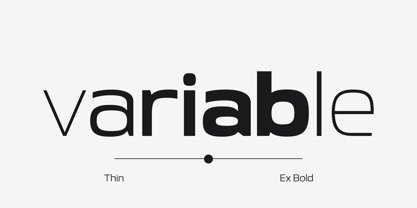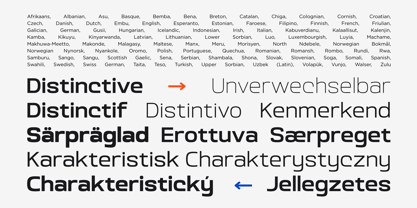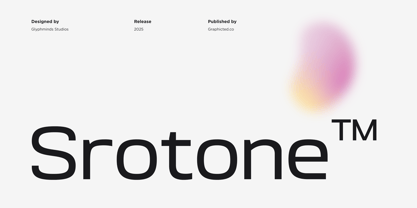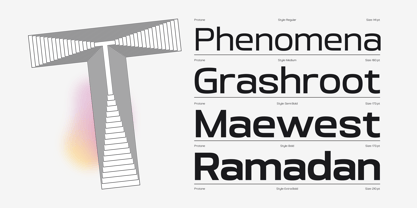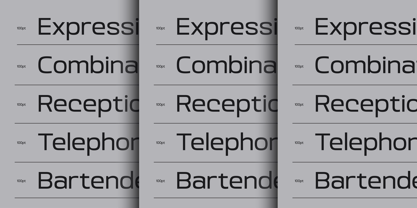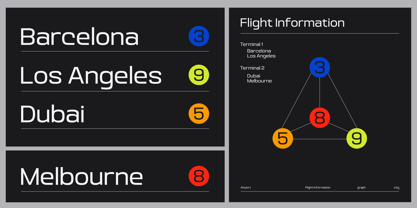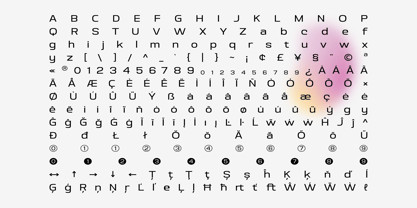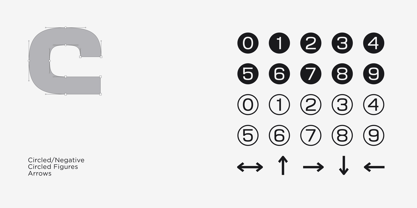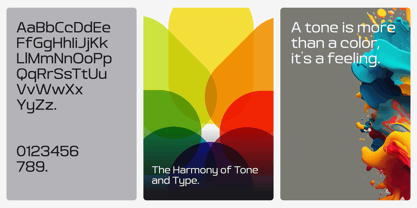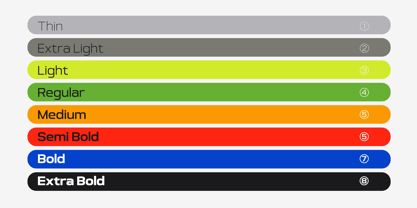
Srotone
by Glyphminds Studios
The Srotone Font Family was designed by Baliya Ibnu Bi Malkan and published by Glyphminds Studios. Srotone contains 8 styles and family package options.
Srotone™ is a modern geometric sans serif typeface designed for versatility and clarity. With its smooth curves and balanced proportions, it brings a professional yet approachable feel to any design project. Perfect for branding, digital interfaces, editorial layouts, and minimalist designs, Srotone™ combines functionality with elegance. Whether you’re crafting a bold headline, a clean logo, or sleek body text, this font adapts seamlessly across print and digital media. Elevate your creative projects with the contemporary style of Srotone™.